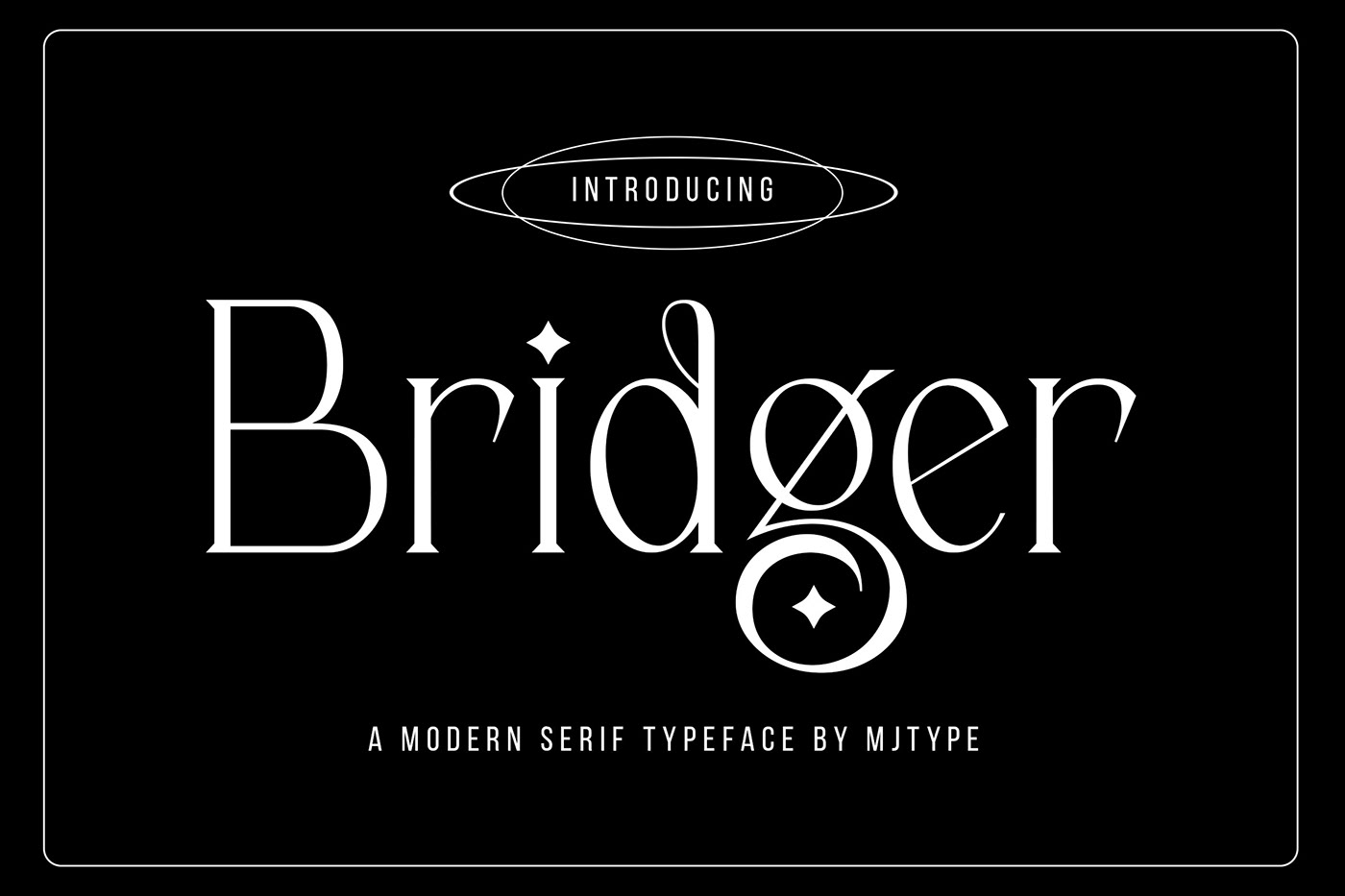
Introducing Bridger Typeface is serif font look elegant and Simple letter shapes with playful ligatures, keeping its legibility high.
Create unique & elegant logotype, use it as an elegant for your next project headlines, logotype designs,
posters or t-shirts, business cards.